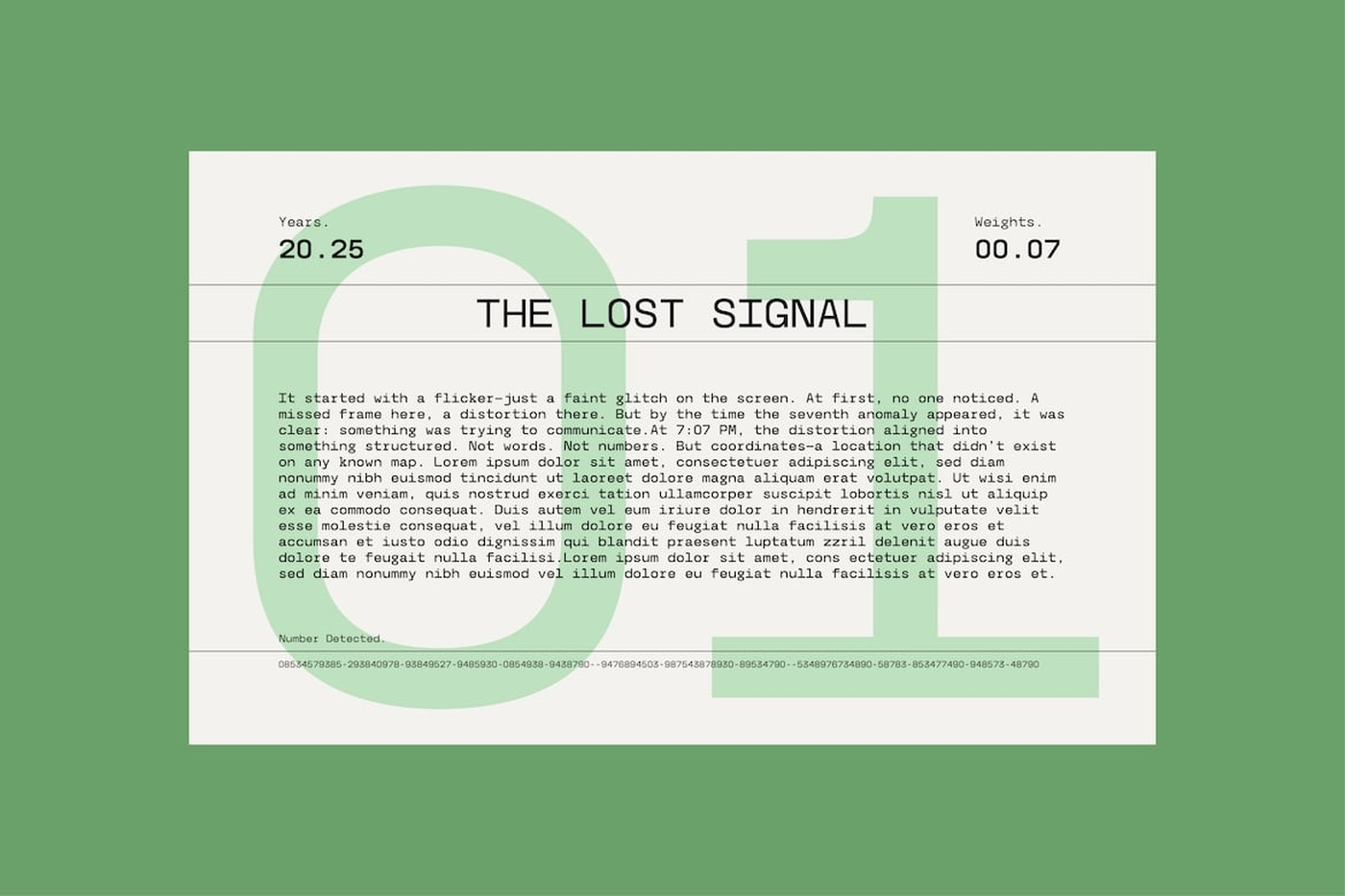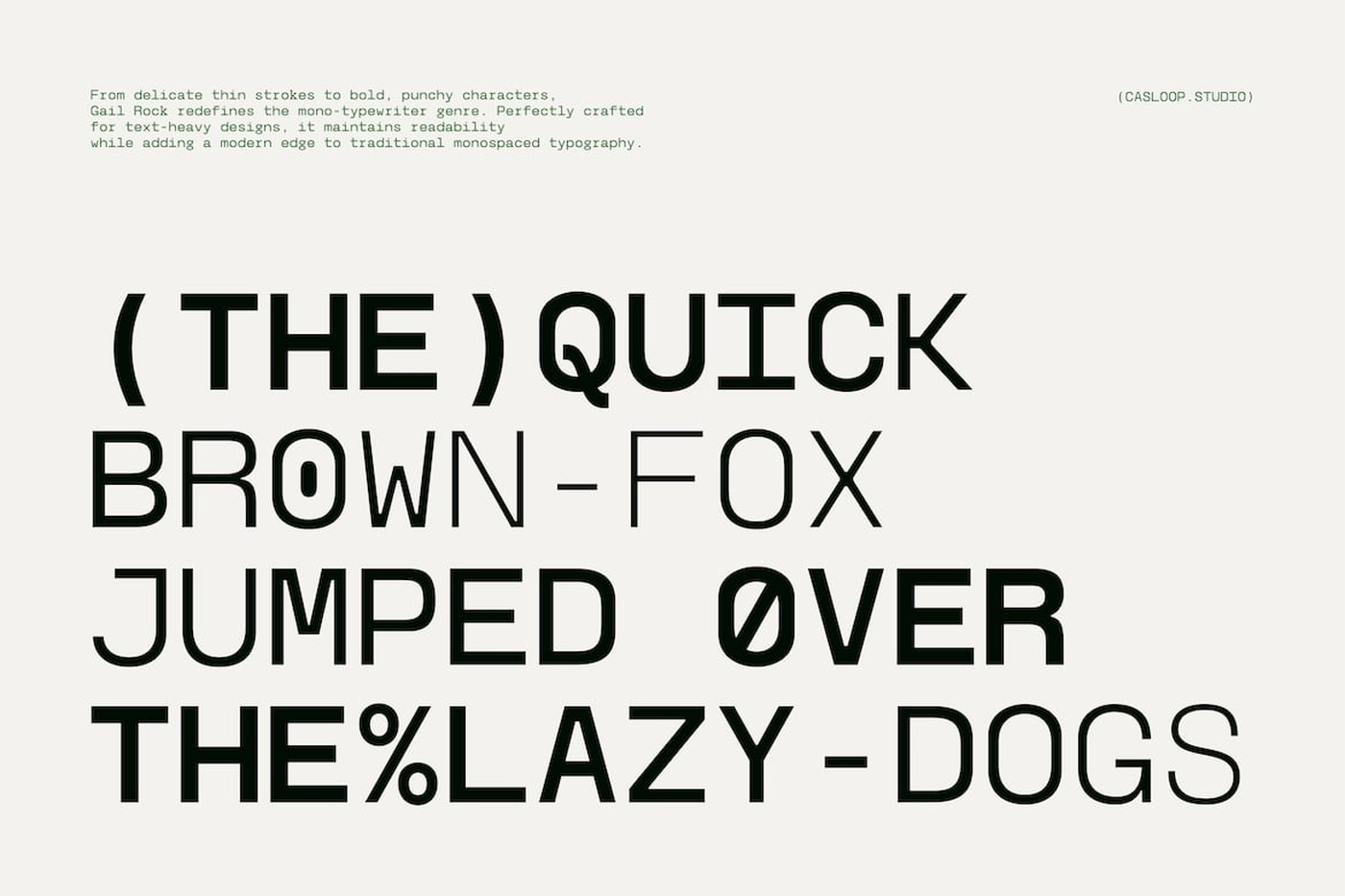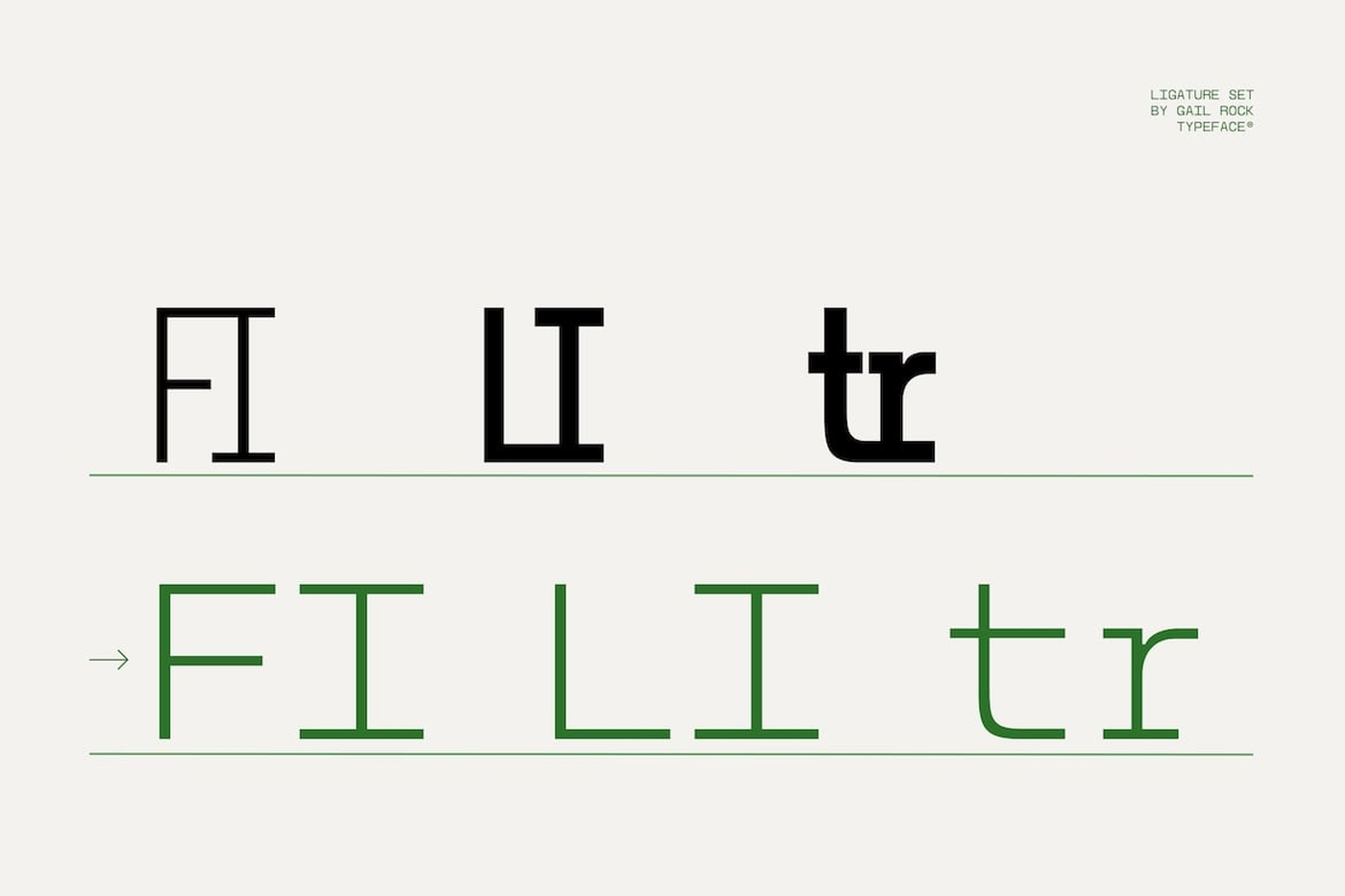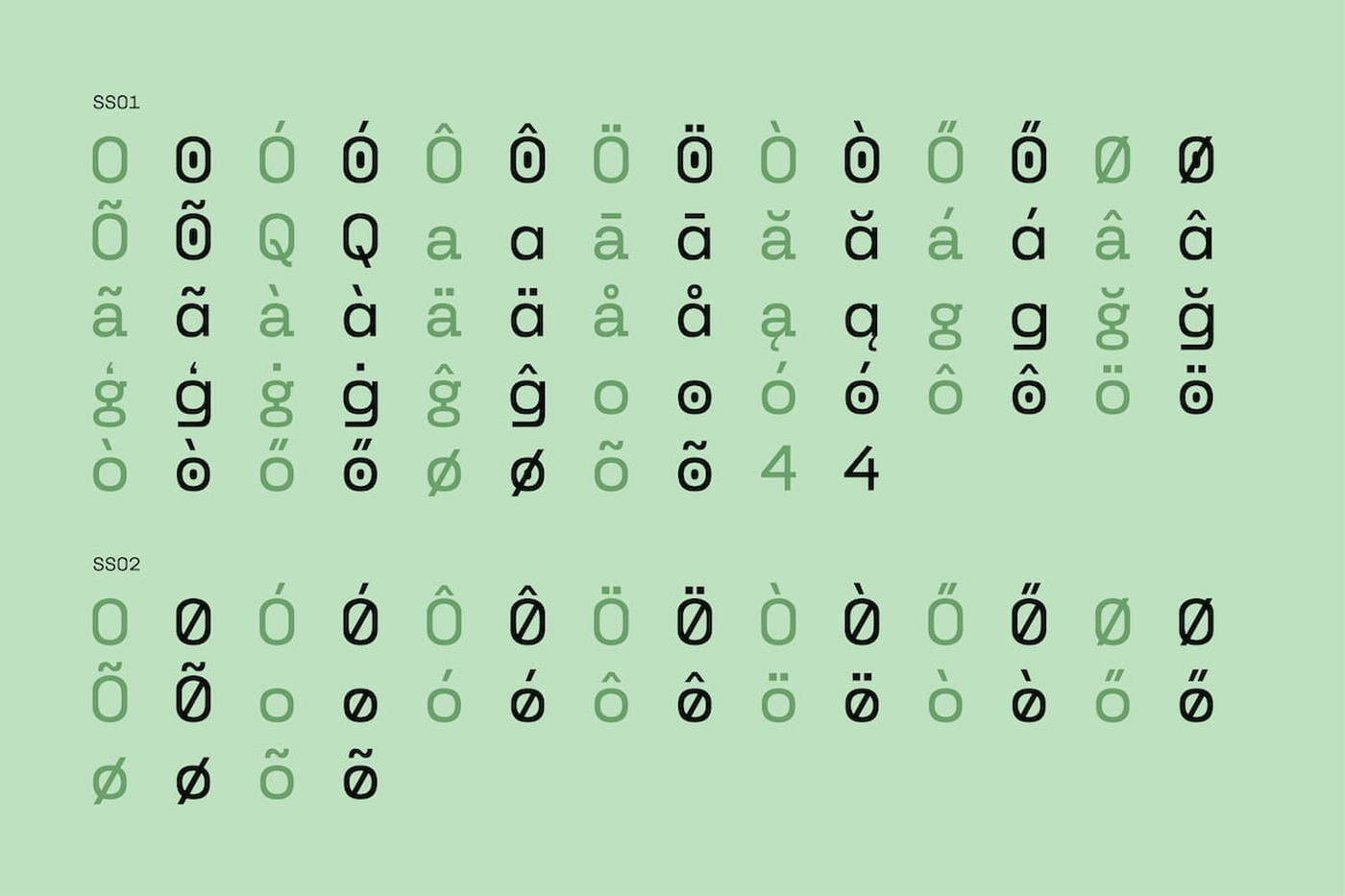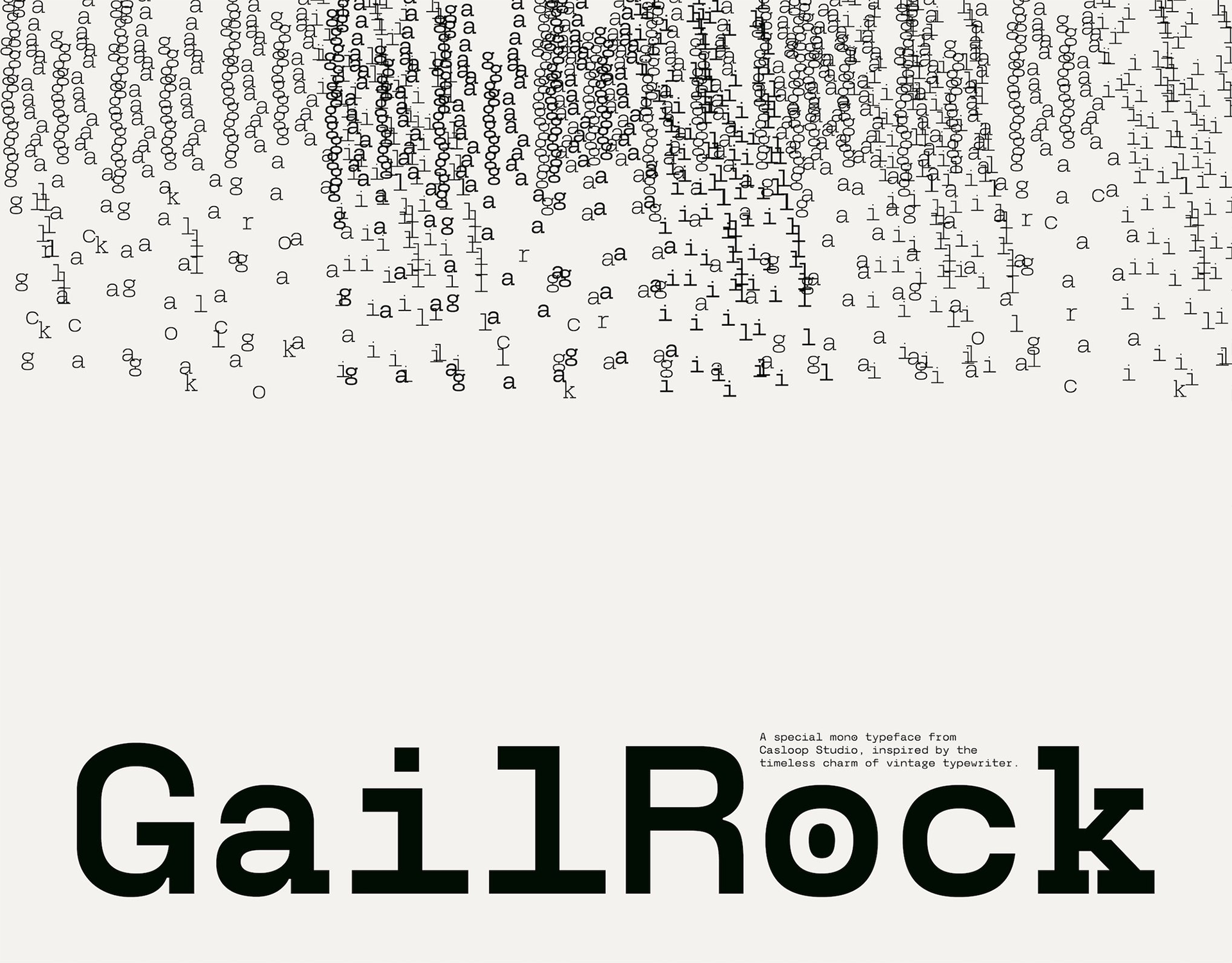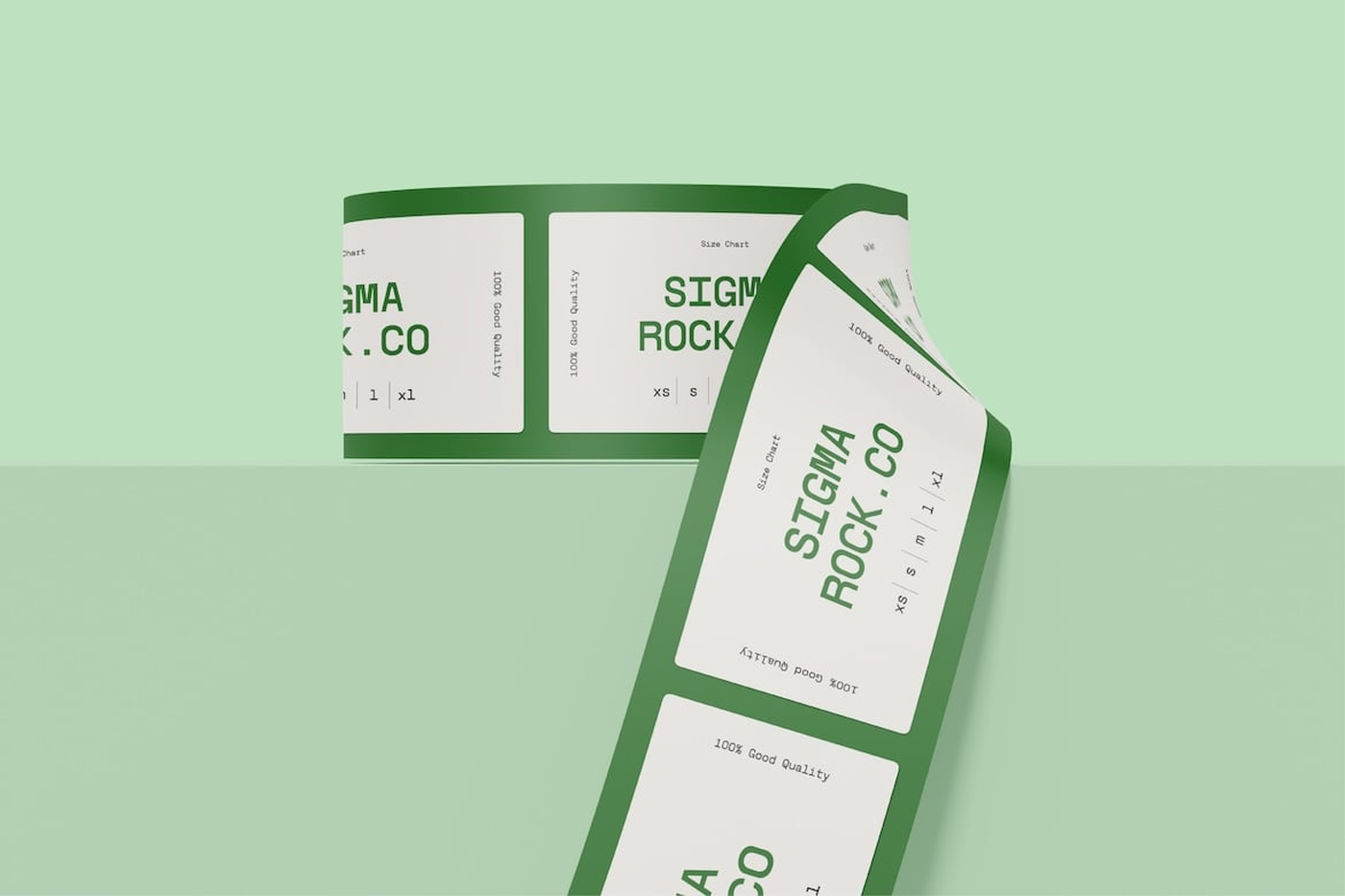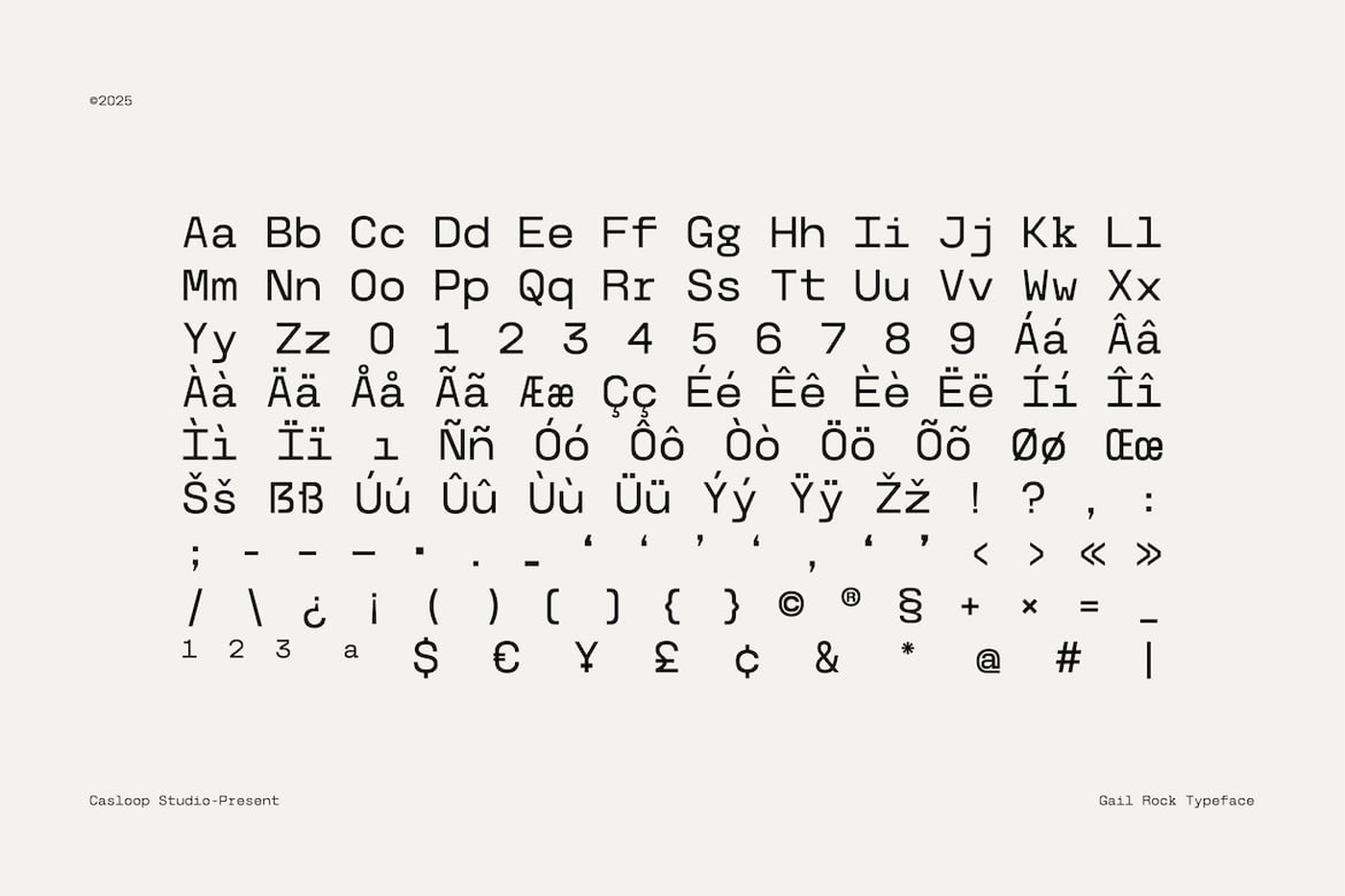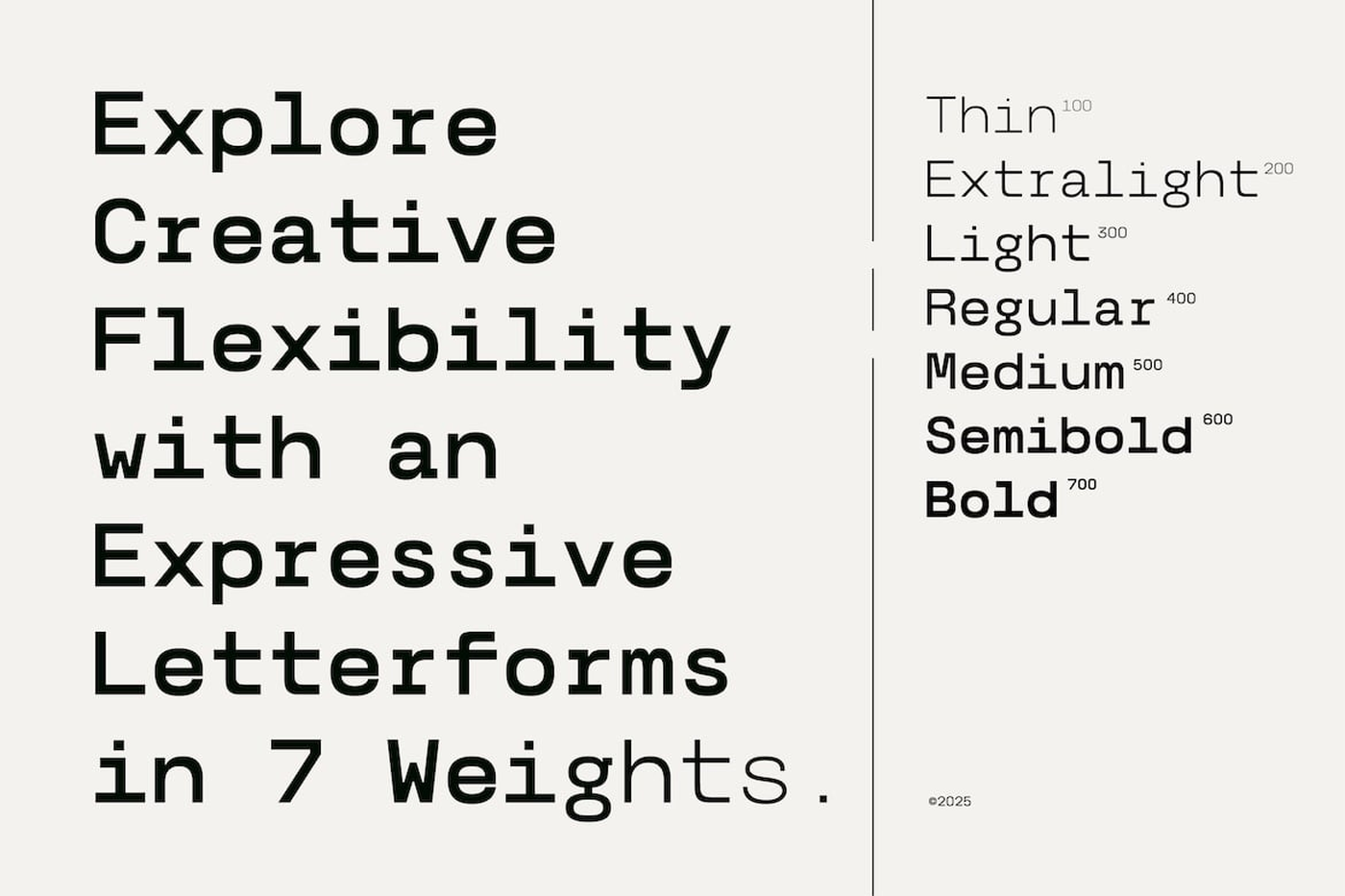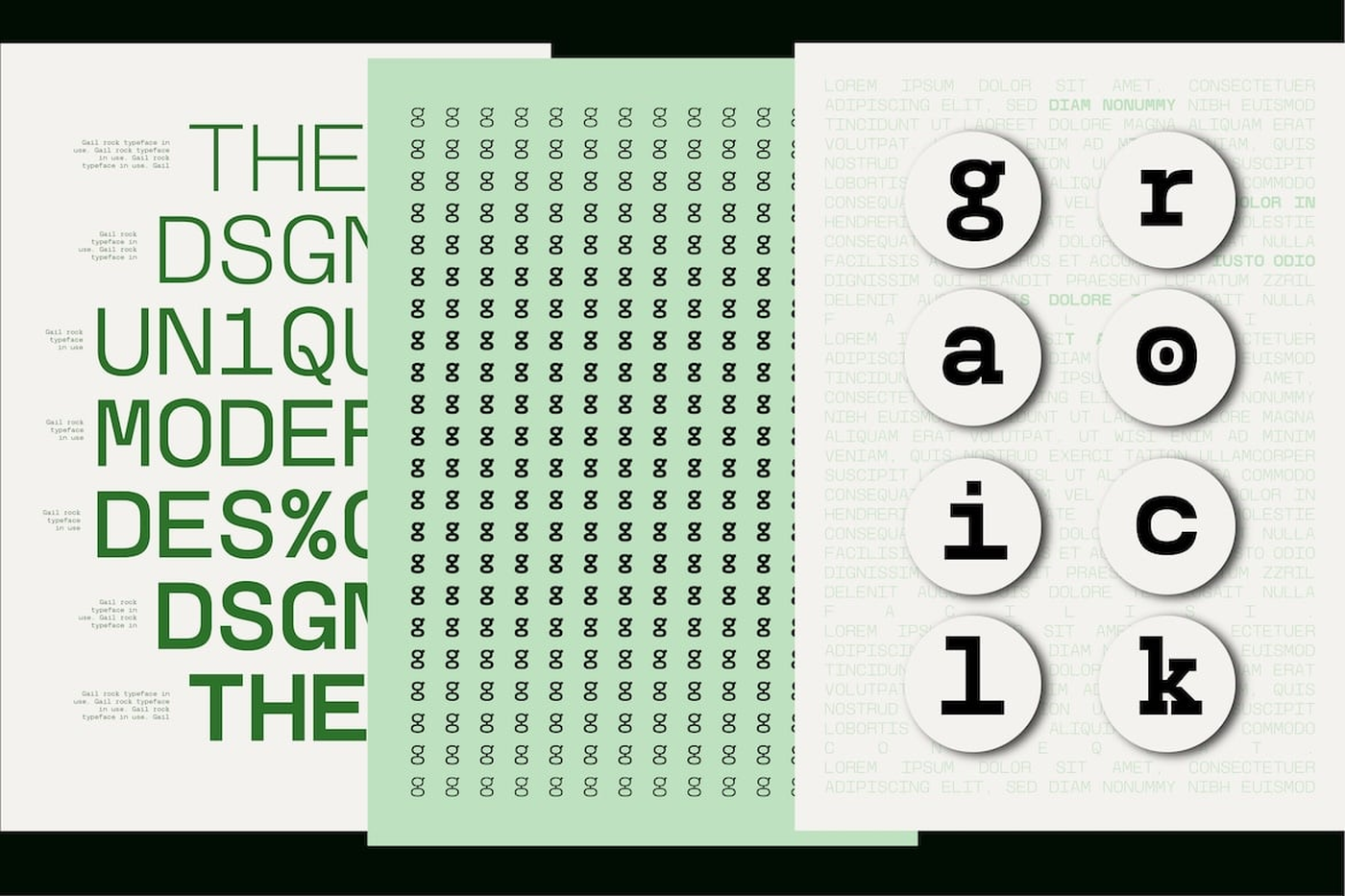
Gail Rock - Monospace Font
Gail Rock is a mono-typeface with grit, charm, and modern attitude. Inspired by the raw beauty of typewriter mechanics, this font fuses retro nostalgia with digital clarity. From precise coding blocks to editorial layouts, Gail Rock delivers solid consistency and expressive flexibility across 7 distinctive weights. Built with a modular mono structure, each letter punches through with personality—whether it’s the clack of a lowercase “g” or the crisp stroke of a capital “I”. This font is ready to rock layouts that demand clarity, control, and just the right dose of character.